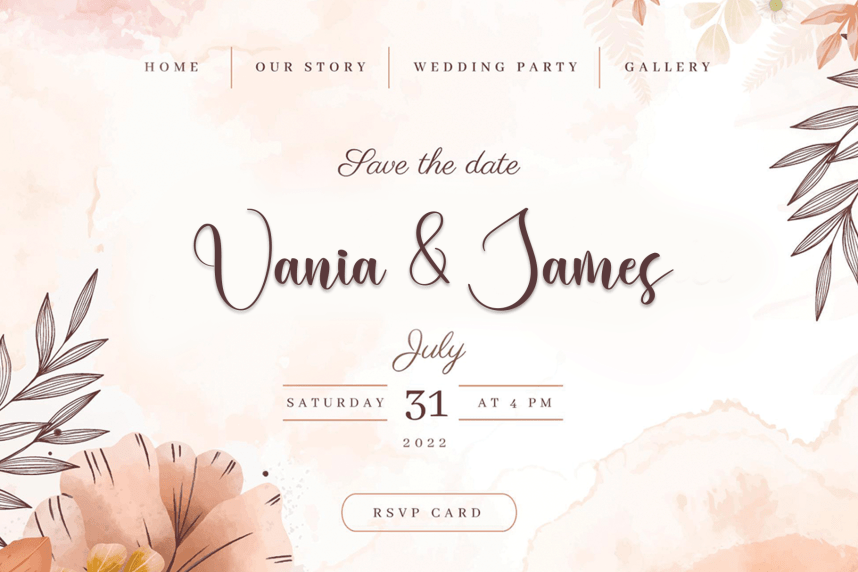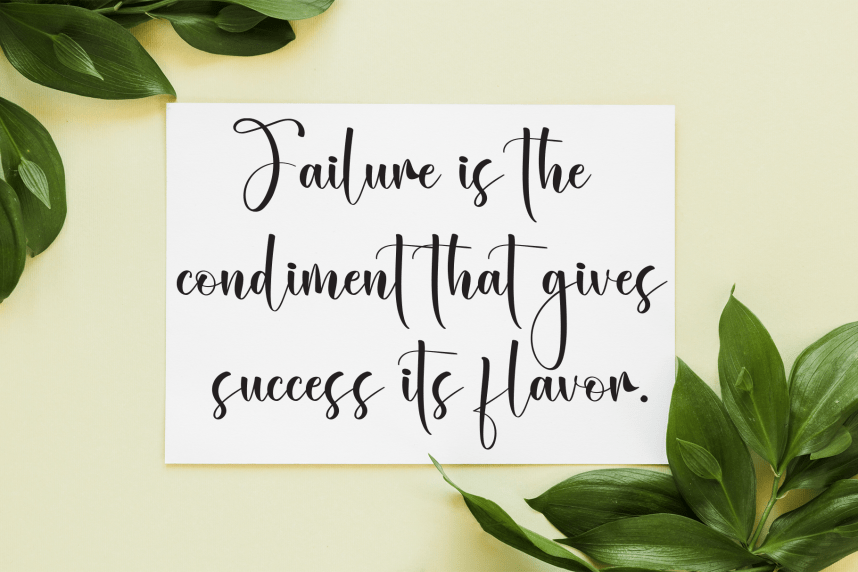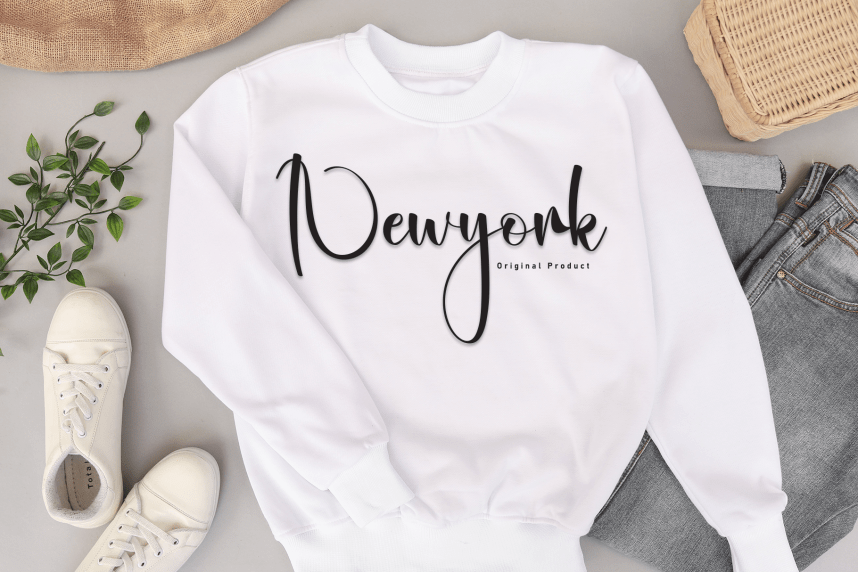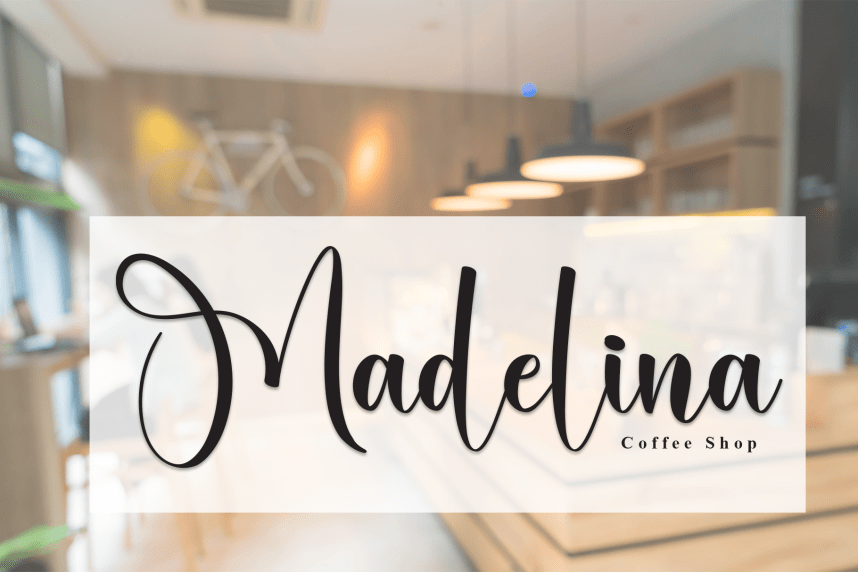
Christmas Butterfly – Elegant Script Handwritten Font
Christmas Butterfly – Elegant Script Handwritten Font, special creative products for you, our products will give you an extraordinary experience. the latest style letters are perfect for wall displays, wedding invitations, social media post logos, advertisements, product packaging, product designs, labels, photography, watermarks, invitations, stationery, and any project that requires taste handwriting.